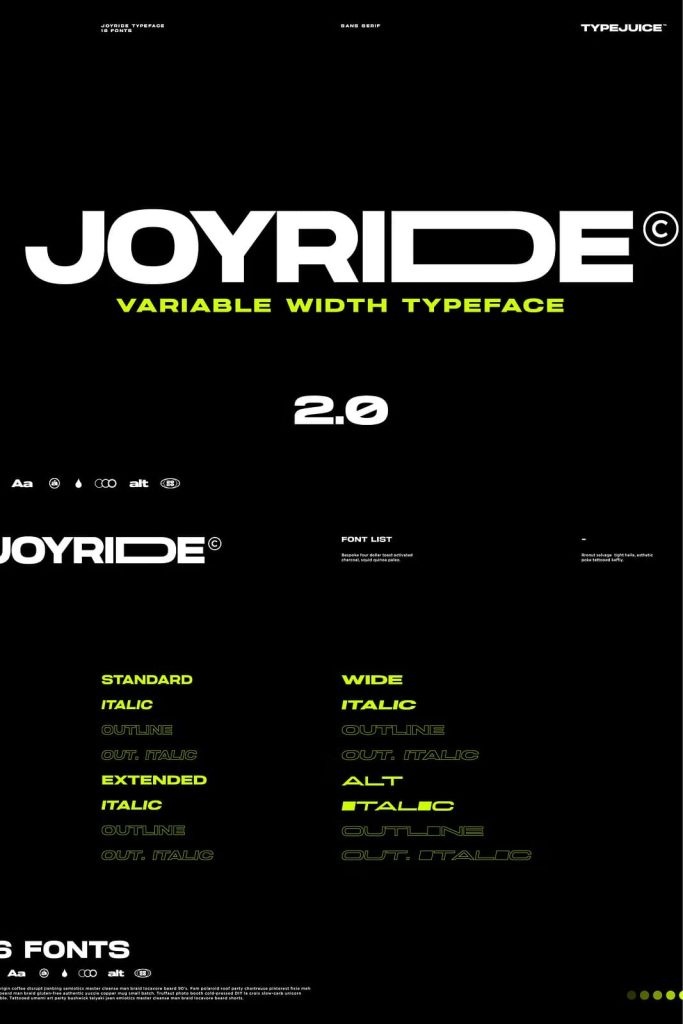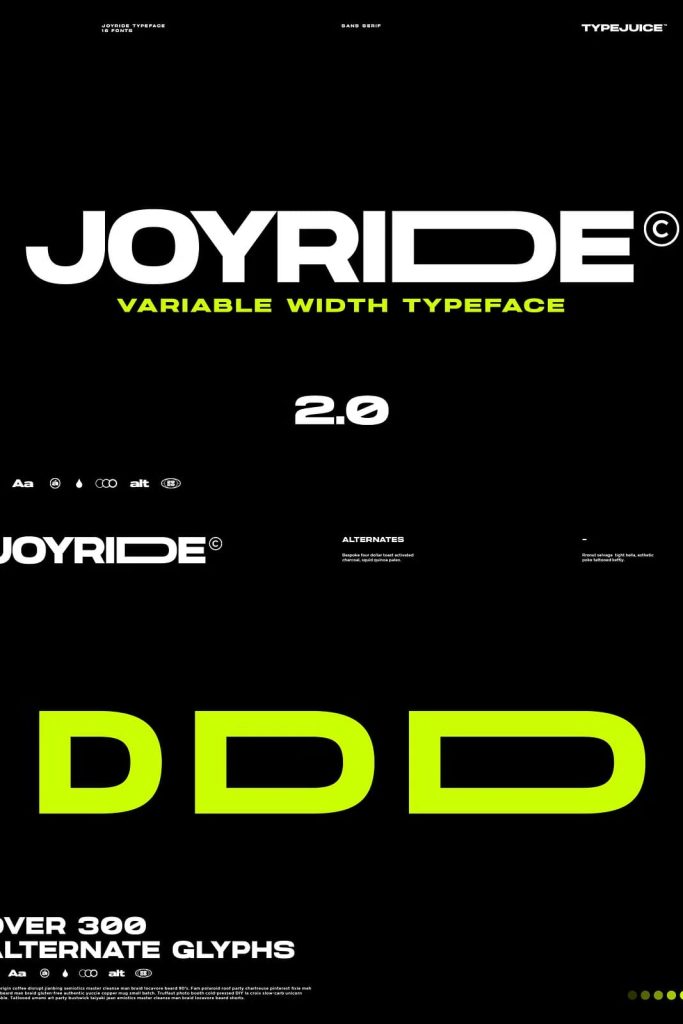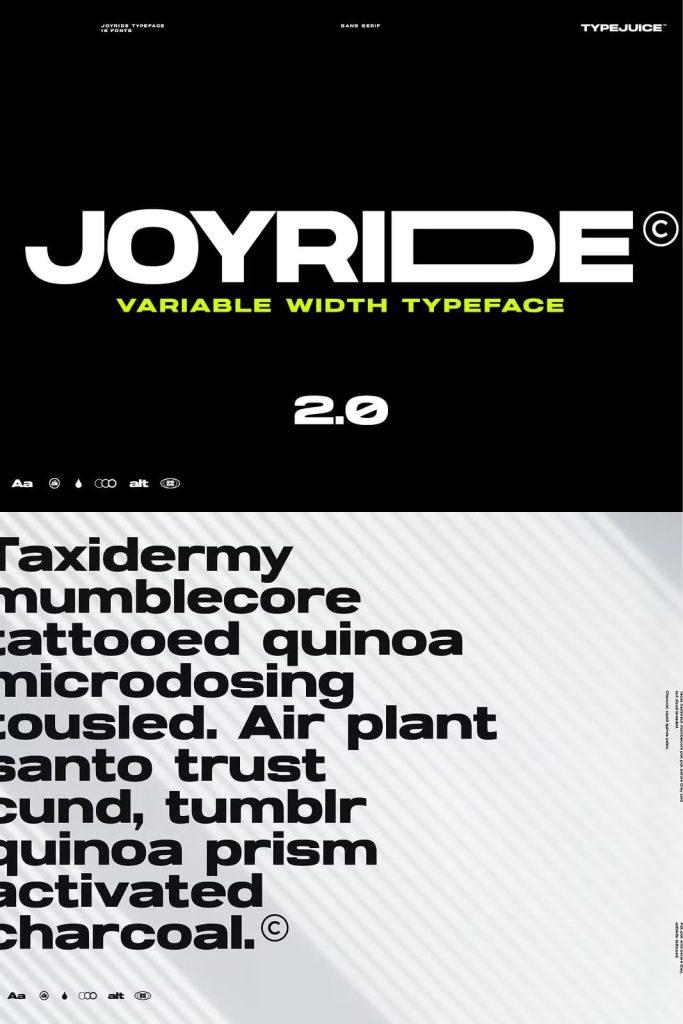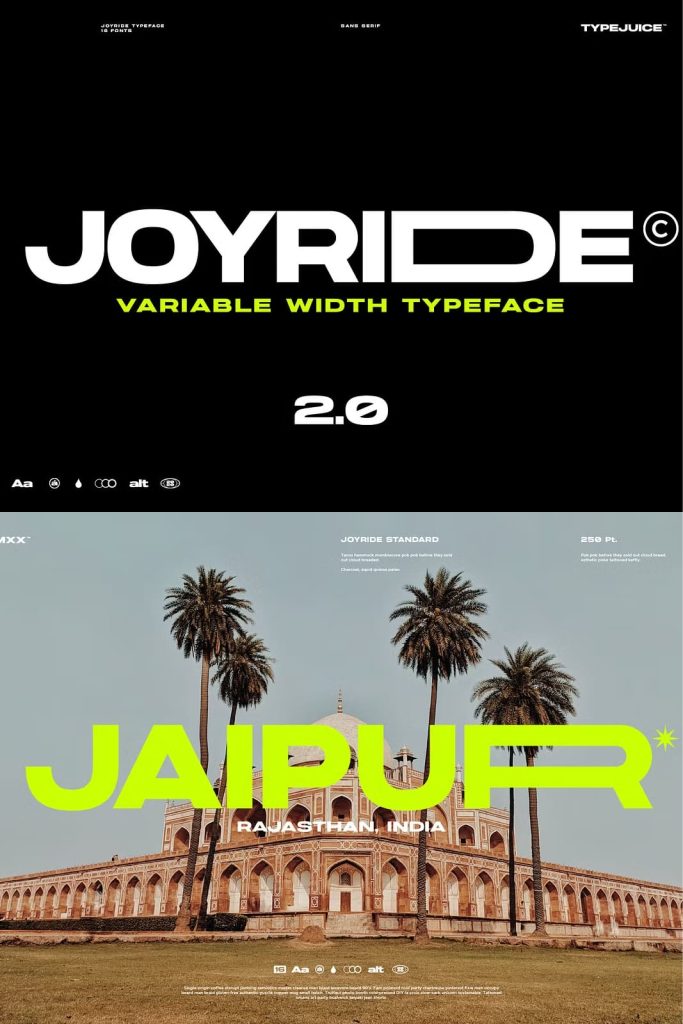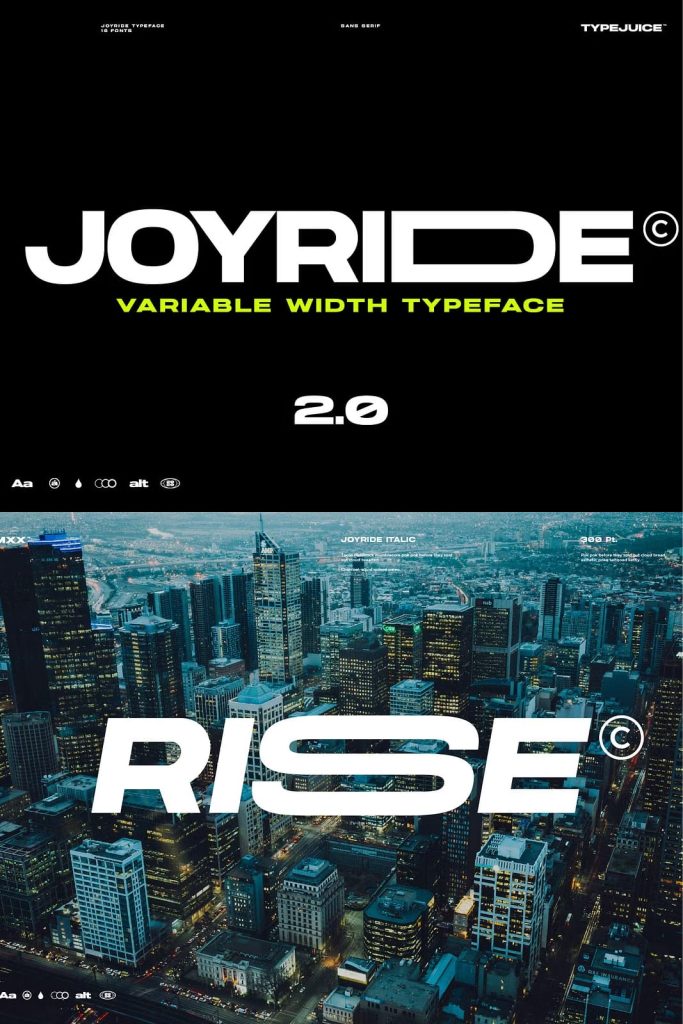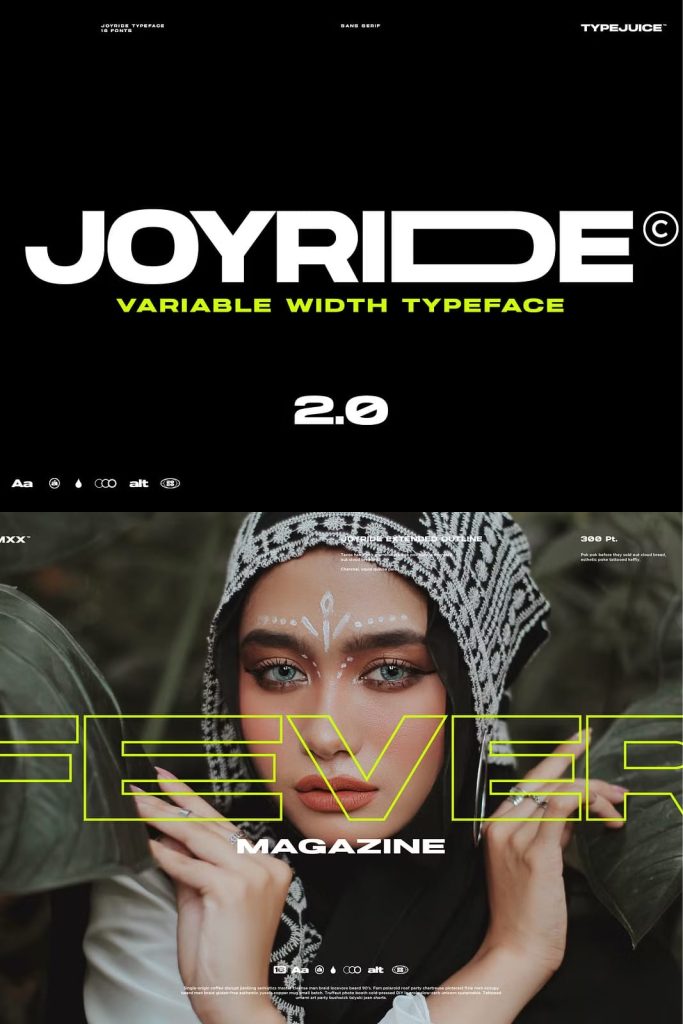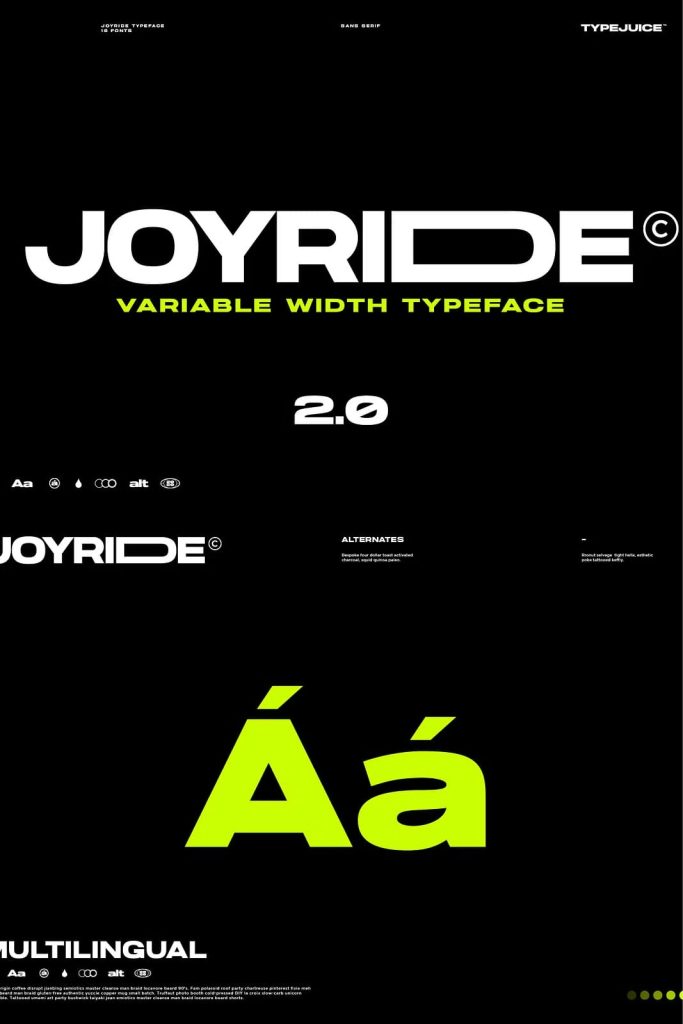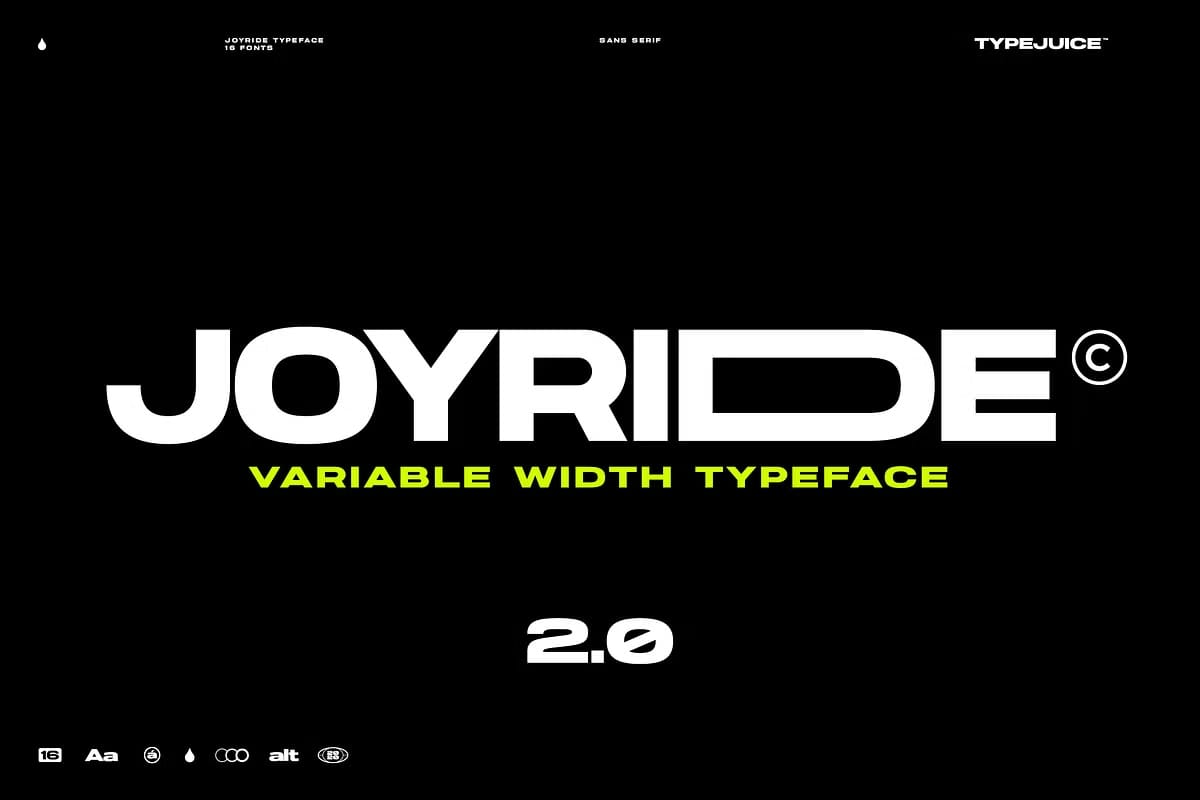
Joyride Extended Typeface
Joyride Variable Width Sans Serif Typeface Family
Joyride is a modern extended variable width sans serif typeface designed to deliver flexibility, clarity, and strong visual impact across a wide range of creative applications. Built with contemporary typography principles and dynamic proportions, Joyride combines clean geometric structure with versatile styling options to create a font family that feels modern, bold, and highly adaptable.
This typeface family includes 16 fonts in a variety of weights and styles, giving designers complete creative freedom when building visual identities, editorial systems, branding projects, and digital experiences. The extensive range of styles allows typography to move seamlessly between minimal sophistication and bold expressive layouts while maintaining a cohesive visual language throughout every project.
Joyride’s extended proportions create a confident and modern appearance that naturally attracts attention. Its wide structure provides excellent readability while adding a unique contemporary personality that helps designs feel fresh and distinctive. Whether used for branding, editorial layouts, advertising campaigns, websites, packaging, or social media graphics, Joyride transforms ordinary typography into visually engaging communication.
Modern Extended Sans Serif with Strong Visual Presence
Joyride stands out through its extended width and clean sans serif construction. The wide proportions give the font a bold and spacious appearance that immediately creates strong visual impact in headlines, titles, and branding applications.
Unlike traditional condensed or neutral sans serif fonts, Joyride introduces more horizontal presence into typography, helping layouts feel modern, open, and highly dynamic. This extended style creates a distinctive rhythm that improves readability while adding contemporary character to every composition.
Its clean geometric structure also ensures versatility across different creative industries and design aesthetics. Designers can use Joyride for minimal modern branding, technology-focused projects, editorial design, luxury packaging, fashion campaigns, and futuristic digital layouts.
16 Fonts for Complete Creative Flexibility
One of the strongest features of Joyride is its extensive family of 16 fonts available in multiple weights and styles. This broad range gives designers the ability to create complete typography systems with consistent visual identity and strong hierarchy.
The lighter weights introduce elegance and minimalism, making them ideal for editorial layouts, luxury branding, and modern website interfaces. Medium weights provide balance and versatility for body text, user interfaces, and promotional materials. The heavier weights create bold emphasis and work exceptionally well for impactful headlines, logos, posters, and large display typography.
The variety of styles also allows designers to experiment with contrast and layout composition while maintaining harmony throughout a project. By combining different weights and styles, typography can feel more layered, organized, and visually engaging.
Recommended Uses for Joyride Typeface
• Modern branding and logo design
• Editorial and magazine layouts
• Website and user interface typography
• Advertising and promotional campaigns
• Luxury and technology branding
• Packaging and product design
• Social media graphics and digital marketing
• Posters, headlines, and display typography
Variable Width Design for Dynamic Typography
Joyride’s variable width concept allows typography to feel more flexible and expressive compared to traditional static font families. The extended structure introduces movement and modern energy into layouts while maintaining clean readability and visual organization.
This dynamic design approach helps typography adapt naturally to different formats and creative directions. Designers can create spacious and sophisticated compositions for luxury branding or bold high-impact layouts for advertising and promotional materials.
The font’s modern proportions also pair beautifully with contemporary design trends such as minimal layouts, oversized typography, geometric graphics, and clean editorial grids. Its adaptability makes Joyride highly valuable for both print and digital projects.
Create Strong and Contemporary Brand Identity
Joyride helps designers create branding systems that feel modern, professional, and visually memorable. Its extended structure and wide range of styles provide the flexibility needed to build cohesive brand experiences across multiple platforms.
The typeface works especially well for fashion brands, creative agencies, technology companies, architecture studios, lifestyle businesses, and modern editorial publications. Its clean design communicates confidence and sophistication while still allowing room for creative experimentation.
Whether you are creating branding, editorial layouts, digital experiences, or advertising campaigns, Joyride delivers the perfect combination of clarity, flexibility, and visual impact. Its contemporary personality and variable width structure make it an essential typeface for designers seeking modern typography with strong character and professional versatility.